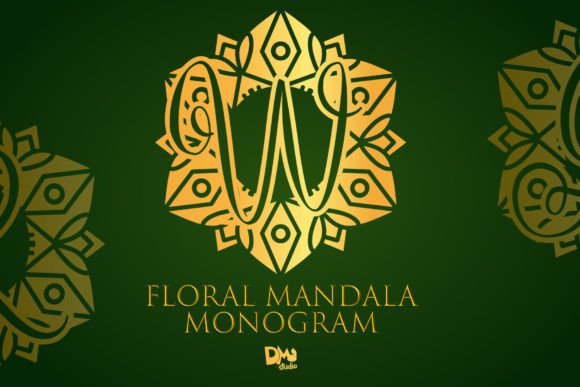
**Introducing Floral Mandala Monogram: A Symphony of Beauty for Your Creative Endeavors**
In a world where individuality and self-expression reign supreme, allow us to introduce you to Floral Mandala Monogram - a decorative font that transcends the boundaries of ordinary typography. Inspired by the intricate elegance of mandala art, this font is a masterpiece that will transform your creative projects into breathtaking works of art.
**A Journey Through Enchantment:**
Step into a realm of visual enchantment as you explore the captivating details of Floral Mandala Monogram. Each letter is adorned with an intricate arrangement of floral motifs, swirling in perfect harmony to create a symphony of beauty. The delicate balance between bold strokes and graceful curves adds a touch of sophistication that will leave your audience spellbound.
**A Font for All Seasons:**
With its versatile nature, Floral Mandala Monogram effortlessly adapts to a myriad of creative endeavors. From wedding invitations that exude timeless elegance to branding projects that demand a touch of uniqueness, this font seamlessly blends with your vision. Whether you're crafting digital designs, creating personalized gifts, or printing heartfelt messages, Floral Mandala Monogram is your trusted companion, ready to elevate your creations to new heights.
**Printing Perfection at Your Fingertips:**
**A Reflection of Your Inner Radiance:**
Floral Mandala Monogram is more than just a font; it's an extension of your creative spirit. With its ability to capture the essence of your unique style, this font becomes a reflection of your inner radiance. Whether you're a seasoned designer, a passionate crafter, or simply someone who appreciates the beauty of art, Floral Mandala Monogram is your perfect partner, transforming your ideas into tangible expressions of your creativity.